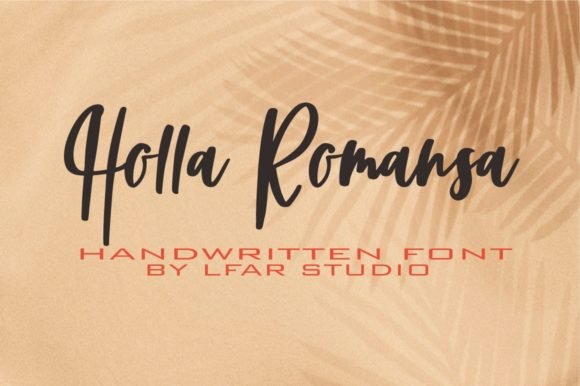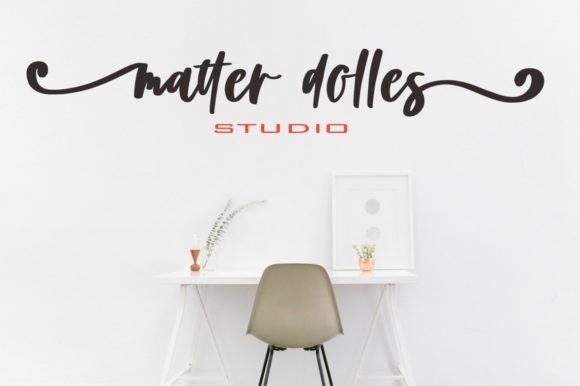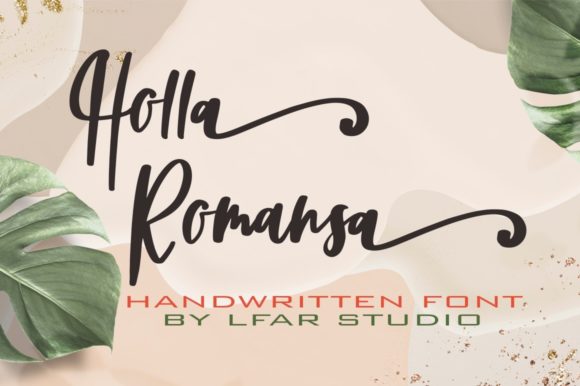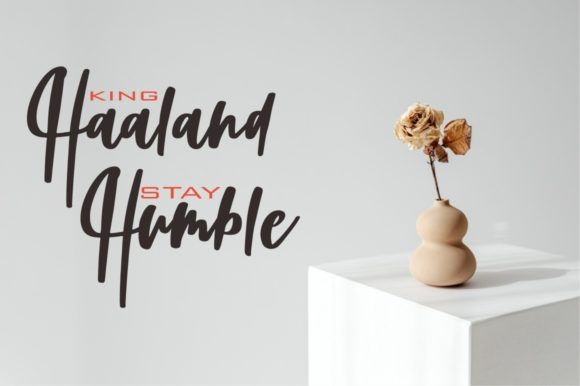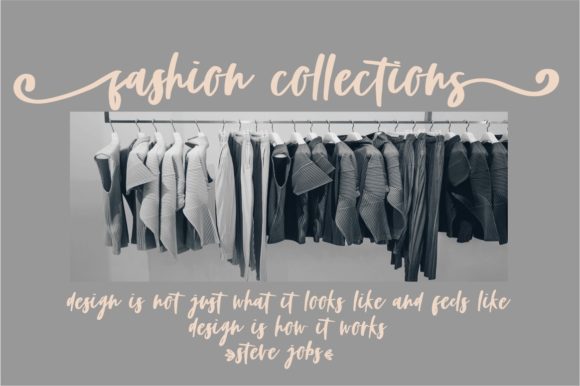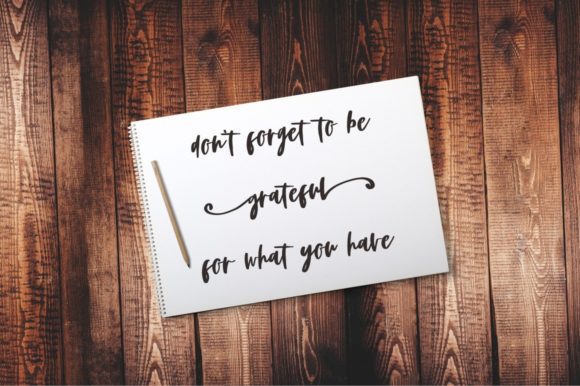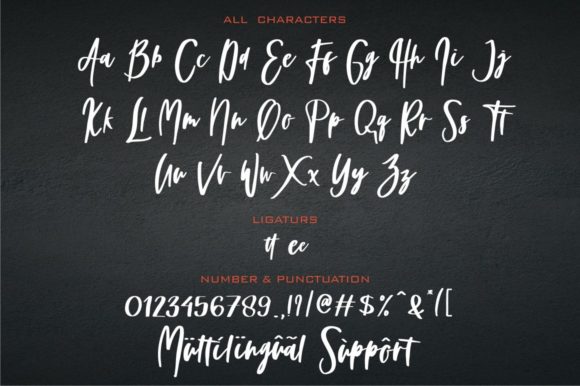
Unlocking the Secret to Elegant Design: The Allure of Holla Romansa Font
Have you ever found yourself stuck in front of a blank canvas, trying to decide on the perfect font to bring your creative vision to life? We’ve all been there – the blank page staring back at us, taunting us to take the leap. For me, it was the moment I stumbled upon Holla Romansa Font, and everything changed.
This chic, delicate, and trendy handwritten font is a game-changer for designers looking to add a unique touch to their projects. Whether you’re creating invitations, card making designs, or anything in between, Holla Romansa Font is the perfect companion to elevate your work. With its PUA encoded features, you can access all the glyphs and swashes with ease, making it a valuable addition to any designer’s toolkit.
- Font Style: Script Font, with a romantic and elegant feel.
- Unique Characteristics: Features a unique blend of classic and modern elements, making it perfect for wedding invitations, romantic quotes, and other special occasions.
I’ve had the chance to work with the Holla Romansa font, and I must say it’s a unique and intriguing addition to any design project. Here are my thoughts on its strengths and weaknesses.
- ✨ Distinctive flair: Holla Romansa has a certain charm that sets it apart from other script fonts. Its irregular strokes and playful character make it perfect for adding a touch of personality to designs.
- ✨ Versatility: Despite its whimsical nature, Holla Romansa can be used in a variety of contexts, from romantic wedding invitations to modern branding materials.
- ✨ Good legibility: While the font’s unconventional design might raise some concerns about readability, I found that Holla Romansa is surprisingly easy to read, even at smaller font sizes.
- ⚠️ Limited language support: Holla Romansa seems to be primarily designed for Latin-based languages, which might limit its use for projects requiring non-Latin scripts.
- ⚠️ Potential for overuse: The font’s distinctive style can be overwhelming if overused. It’s essential to balance Holla Romansa with other fonts to avoid visual fatigue.
While Holla Romansa has its limitations, I believe it’s a great addition to any designer’s toolkit. Its unique charm and versatility make it perfect for adding a touch of personality to designs, but it’s essential to use it judiciously to avoid overuse. With the right balance and context, Holla Romansa can elevate any design project.
For the most effective use of Holla Romansa font, use it for titles, headings, and emphasis in your designs. This font is particularly suitable for creative, artistic, and whimsical projects. Experiment with different font sizes, colors, and combinations to create visually appealing designs.